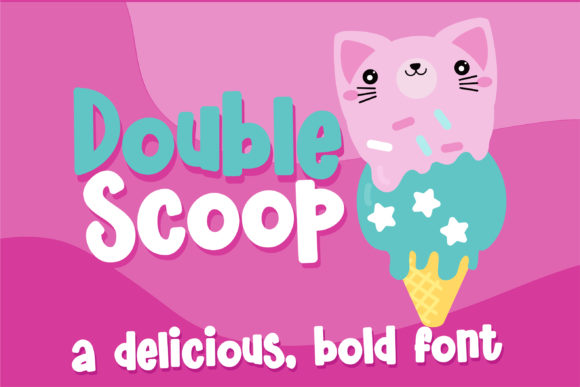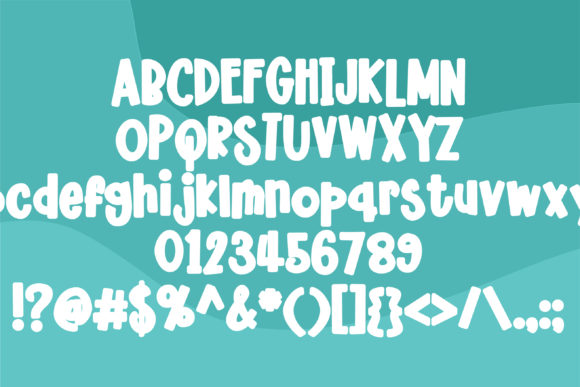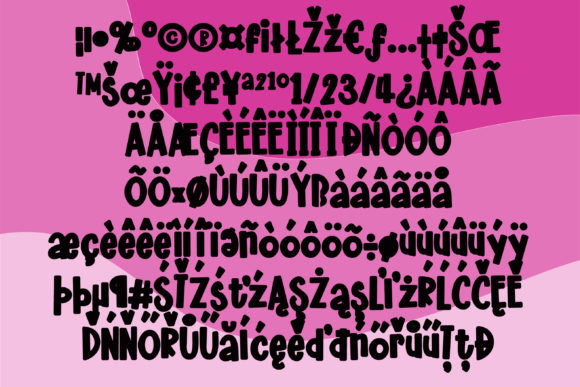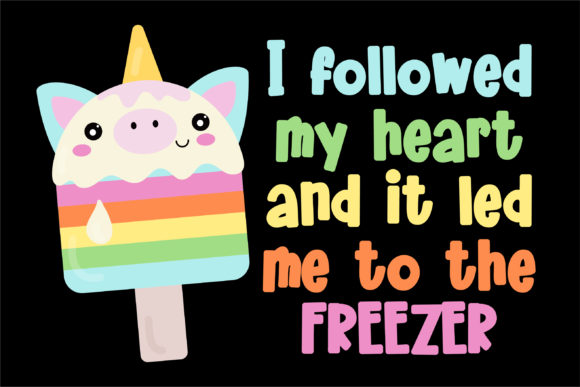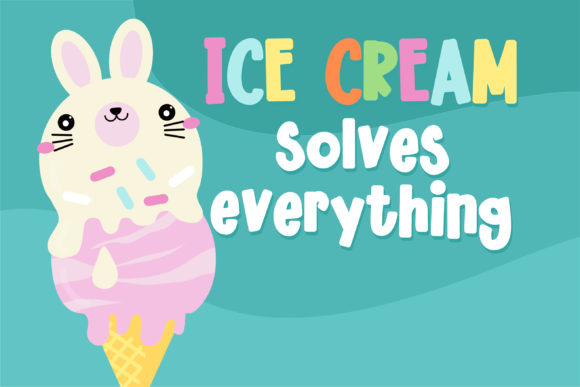
Double Scoop Font
Double Scoop is a sweet and delicious handwritten font with a cool twist. Get inspired by its unique feel, and turn any design into a true standout!